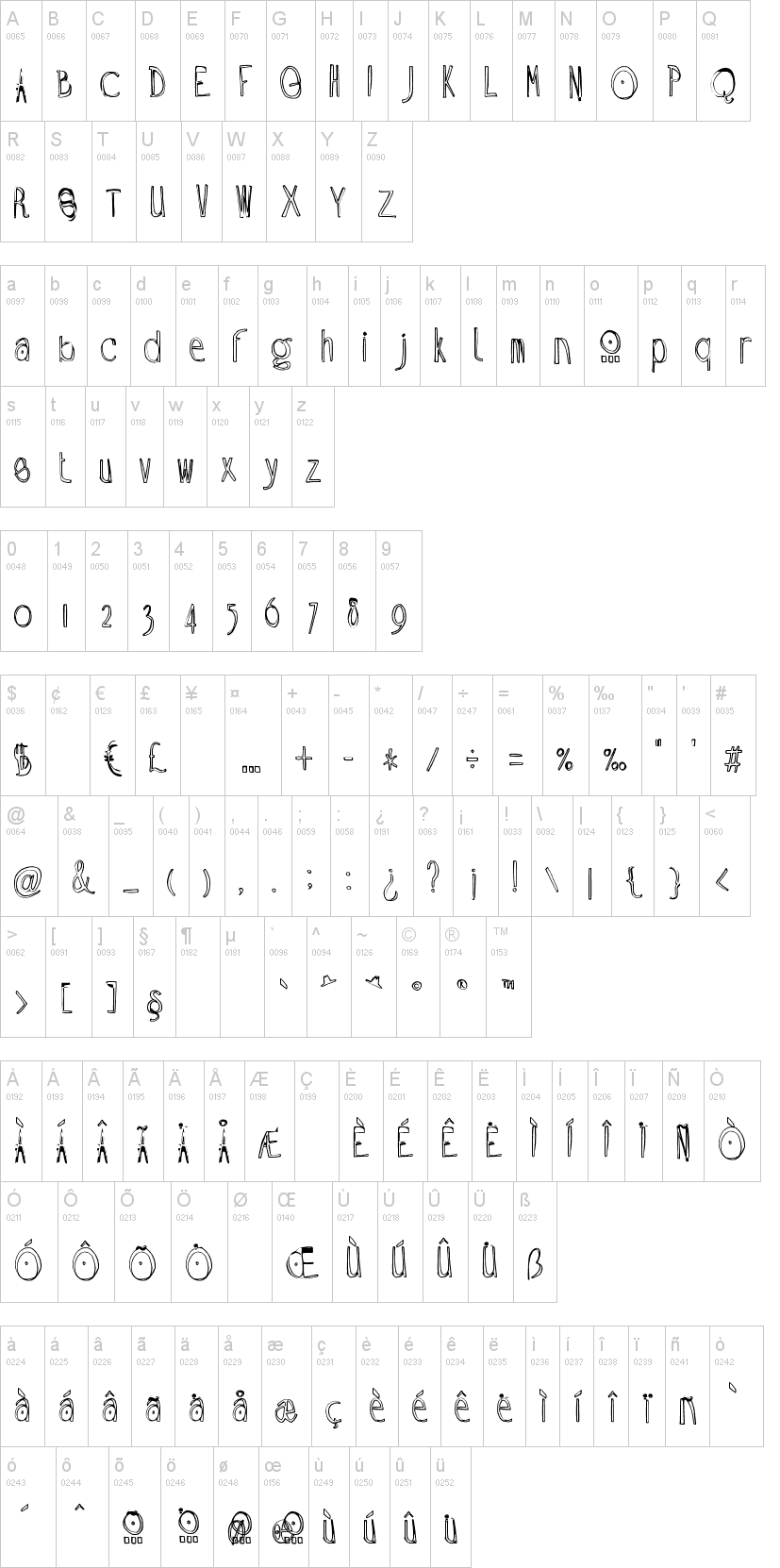
Шрифт Ramon
Cowboy Ramon notes:
the regular face contains old style figures, lining figures are in bold face.
use "~" and "^" after letters to put a hat on top (bold and regular).